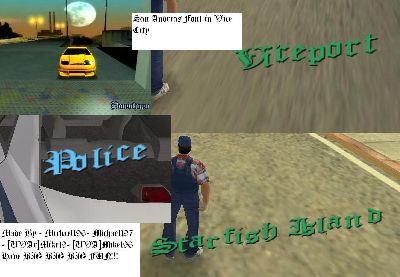
ok this mod will change your text in the Game in to San Andreas font
like in GTA:San Andreas
diese fonts sin scheisse ,die buchstaben sind net in der selben höhe und manche sind schwer lesbar , daswegen sieht es nicht gut aus und manchmal braucht mann zeit um zu raffen was da steht...